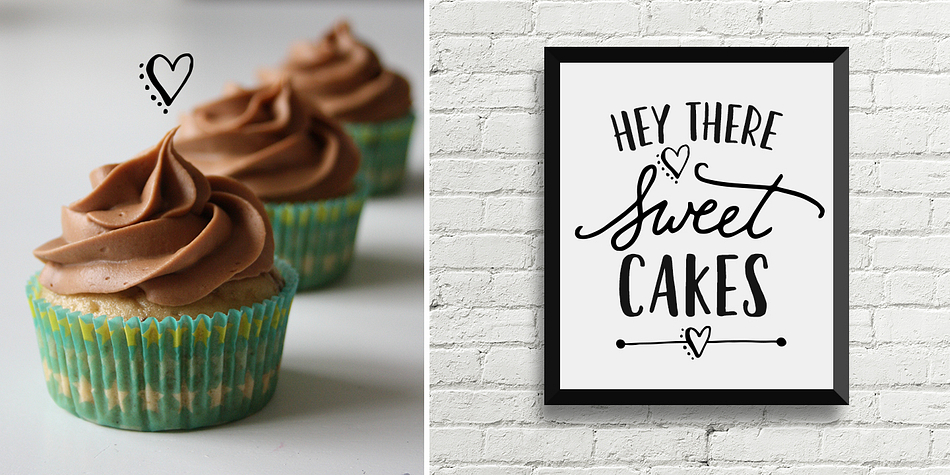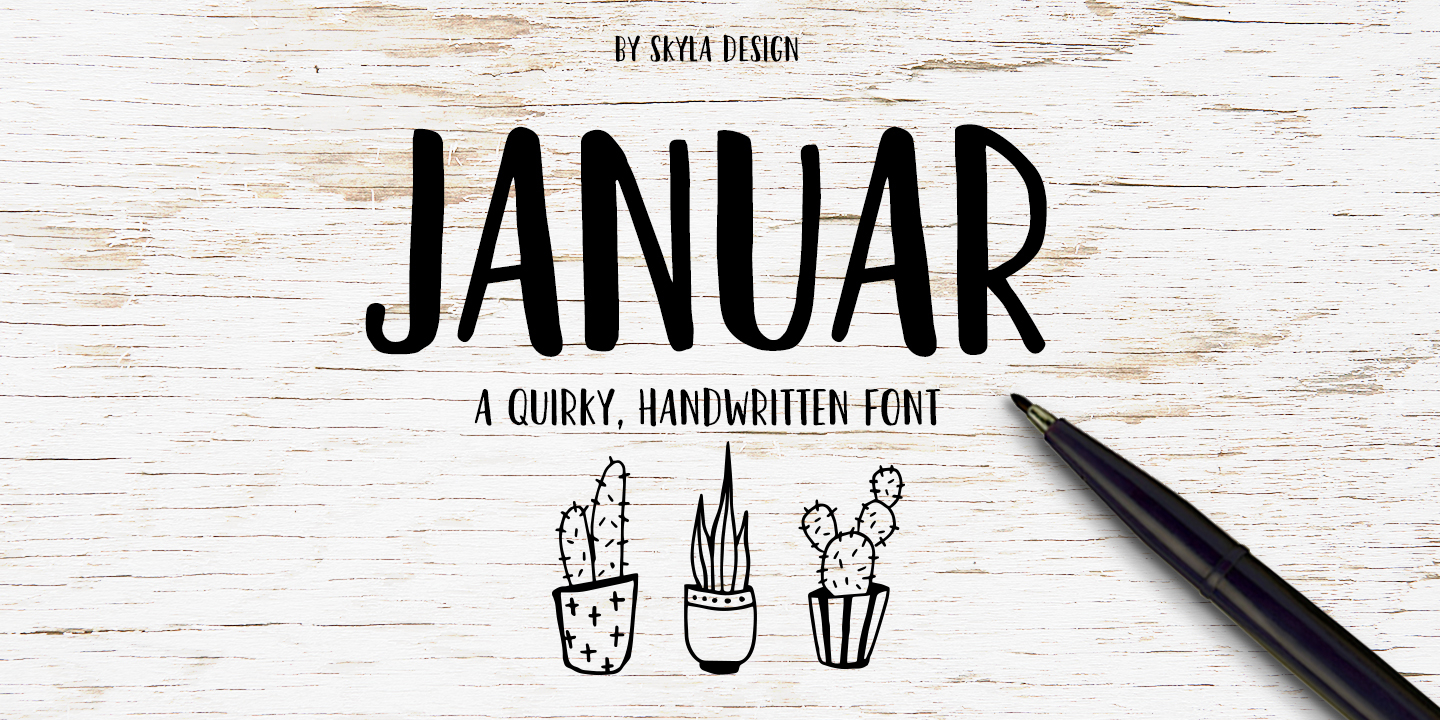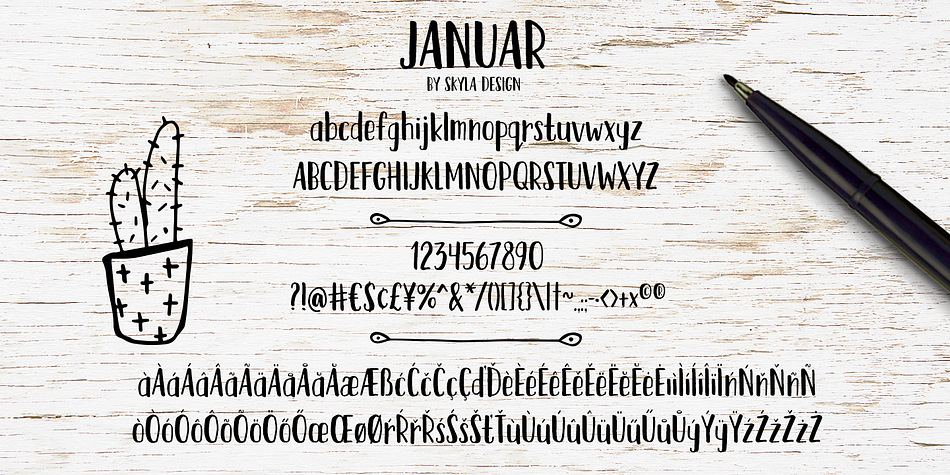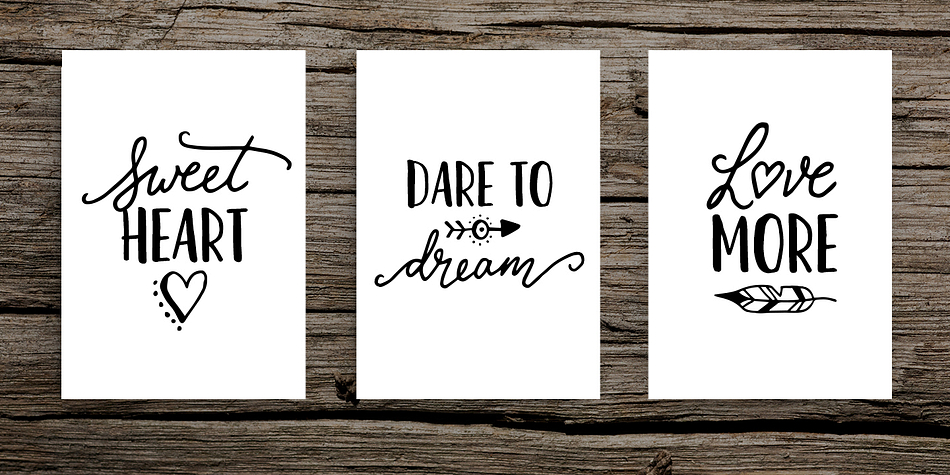
Januar is a hand display font published by Angèle Kamp.
Januar is a quirky handwritten font. This playful sans serif will look so cute on your logo’s, cards, invites, and any other fun projects you are working on. This font also works perfectly when pairing it with a script font.
This font contains standard characters, lowercase, uppercase, numbers, punctuation and international characters. All clipart and catchwords used in the previews can be found in my Boho clipart set https://crmrkt.com/q703W